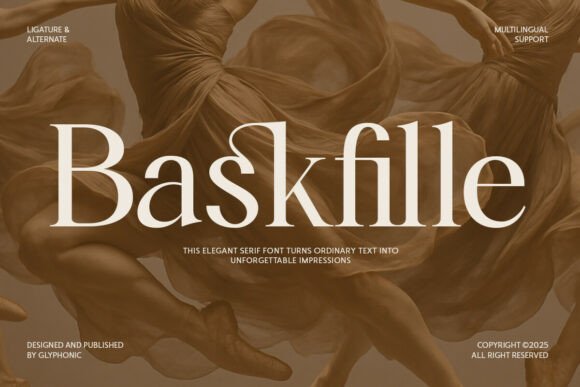
Baskfille Font: Elevate Your Design with Elegance and Sophistication
In the world of typography, a font can make or break the visual identity of a brand, product, or creative project. For designers and crafters seeking to infuse their work with a touch of classic charm and modern sophistication, Baskfille Font is an exceptional choice. This elegant serif typeface is meticulously crafted to deliver refined elegance, making it perfect for a wide range of applications, from headlines and branding to logos, packaging, and editorial design.
The Essence of Baskfille Font
Baskfille Font is characterized by its sharp serifs, high contrast strokes, and graceful proportions. These distinctive features combine to create a typeface that exudes sophistication and character, lending a unique personality to any creative project. The sharp serifs add a touch of precision and elegance, while the high contrast strokes provide a dynamic and refined look. The graceful proportions ensure that the font remains legible and aesthetically pleasing, even at smaller sizes.
Versatility and Timeless Beauty
One of the standout qualities of Baskfille Font is its versatility. Whether you’re designing for fashion, lifestyle, or artistic visuals, this typeface offers the perfect blend of elegance and modernity. Its classic roots ensure that it will never go out of style, making it an excellent choice for projects that require a timeless look. At the same time, its modern flair ensures that it will stand out in a crowded design landscape, giving your work a distinctive edge.
Applications of Baskfille Font
Baskfille Font is incredibly versatile and can be used in a variety of design applications, including:
- Headlines and Titles: The font’s elegant serifs and high contrast strokes make it perfect for headlines and titles, adding a touch of sophistication and glamour to any design.
- Branding and Logos: Baskfille Font is an excellent choice for branding and logos, providing a unique and memorable visual identity for businesses and products.
- Packaging Design: The font’s refined elegance and classic charm make it an excellent choice for packaging design, adding a touch of luxury and sophistication to any product.
- Editorial Design: Baskfille Font is also well-suited for editorial design, providing a elegant and refined look for magazines, newspapers, and other publications.
Why Choose Baskfille Font?
With so many fonts available, why choose Baskfille Font for your next design project? Here are just a few reasons:
- Unique Personality: Baskfille Font has a unique personality that sets it apart from other serif typefaces, making it an excellent choice for designers seeking to create a distinctive visual identity.
- Refined Elegance: The font’s refined elegance ensures that it will add a touch of sophistication and glamour to any design.
- Versatility: Baskfille Font is incredibly versatile, making it suitable for a wide range of design applications.
- Timeless Beauty: The font’s classic roots ensure that it will never go out of style, making it an excellent choice for projects that require a timeless look.
In conclusion, Baskfille Font is an exceptional choice for designers and crafters seeking to elevate their work with elegance and sophistication. Its unique personality, refined elegance, versatility, and timeless beauty make it perfect for a wide range of design applications. Whether you’re designing for fashion, lifestyle, or artistic visuals, Baskfille Font is sure to make a lasting impression.